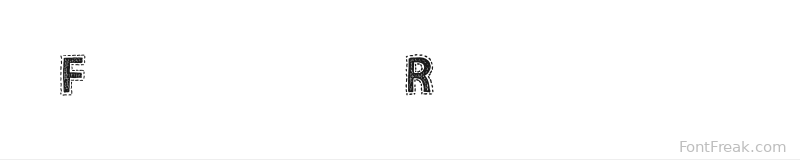
Fabrics Regular
Fabrics Regular by Cloutierfontes is a unique decorative font that captures the essence of textile-inspired design. This font combines playful elements with a structured appearance, making it ideal for various creative projects. It features a medium stroke weight with moderate contrast, giving it a balanced aesthetic that is both approachable and engaging. The characters are well-spaced, allowing for easy readability while maintaining a fun, whimsical vibe. The decorative elements echo the textures and patterns often found in fabrics, creating a visually rich experience.
Fabrics Regular is particularly well-suited for wedding invitations, where its charming design can enhance the romantic atmosphere. It also works wonderfully for branding materials in the fashion industry, helping to convey a stylish and contemporary image. Additionally, this font can elevate restaurant menus, adding a touch of personality to the dining experience. Graphic designers will find it useful for creating eye-catching promotional materials, while content creators can use it in social media graphics to grab attention.
Targeting graphic designers, small business owners, and content creators alike, Fabrics Regular offers versatility for diverse applications. Its unique characteristics can help any project stand out, making it a valuable addition to any designer's toolkit.
The appeal of Fabrics Regular lies in its ability to marry functionality with artistic flair. It stands out in a crowded font marketplace by offering a fresh take on decorative typography that is both stylish and practical. With a Fabrics Regular font free download available, designers can easily incorporate this delightful typeface into their work, ensuring their projects are not only visually appealing but also memorable.